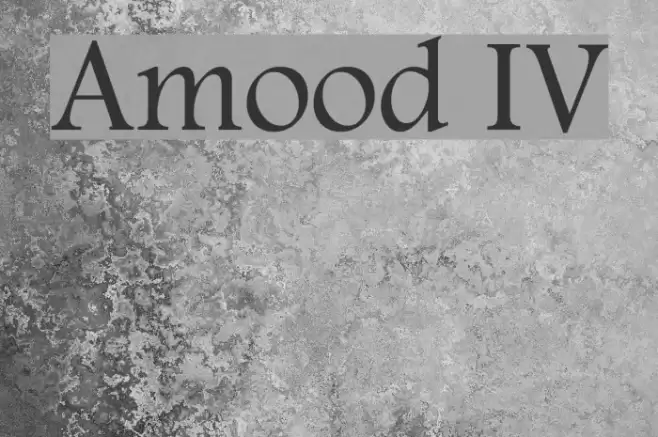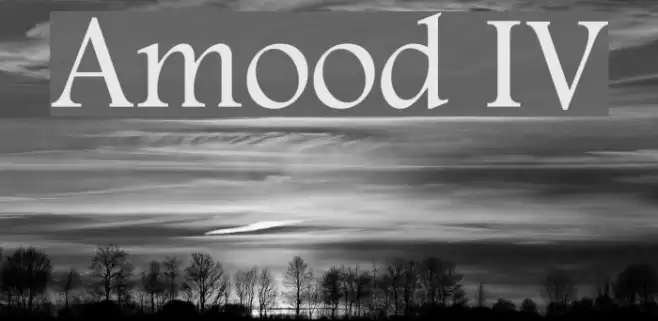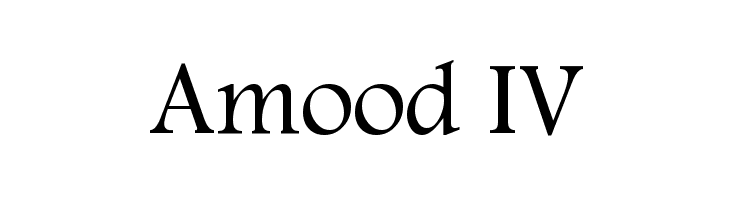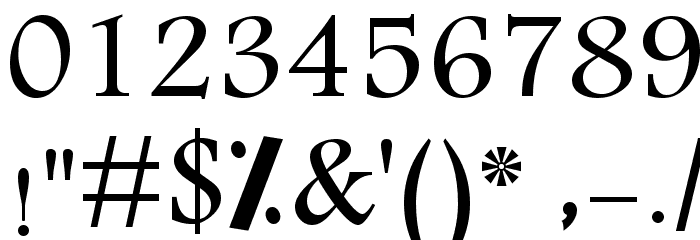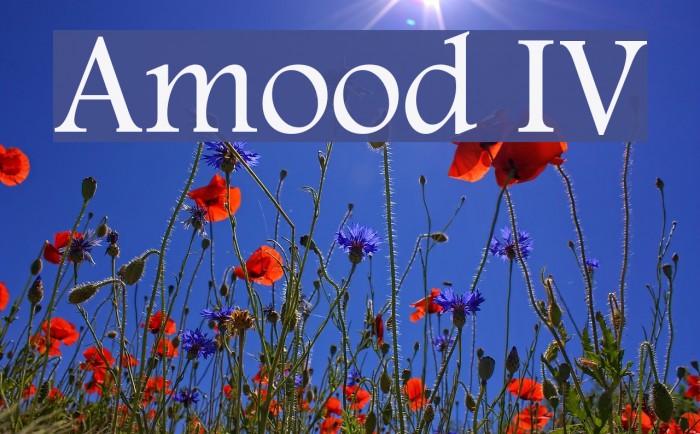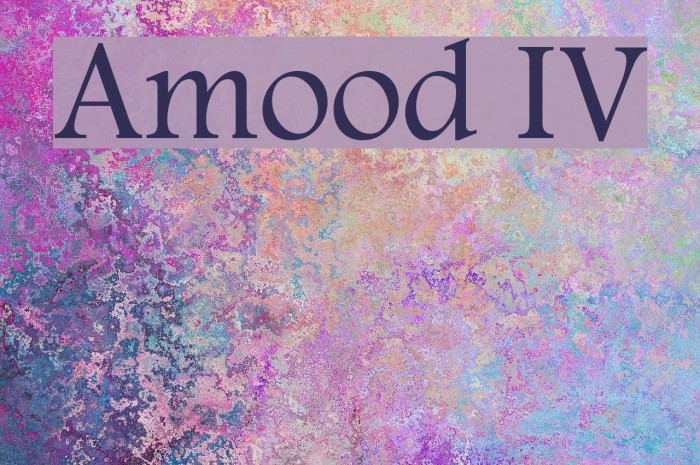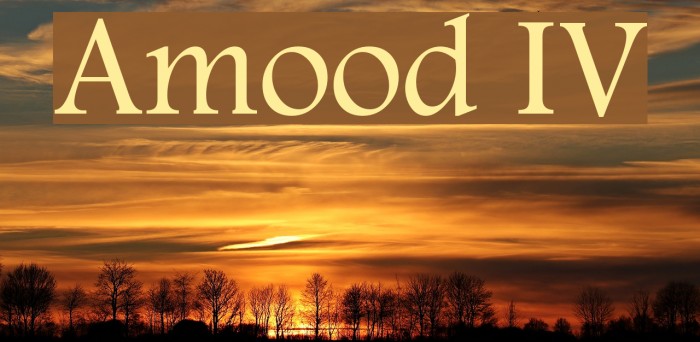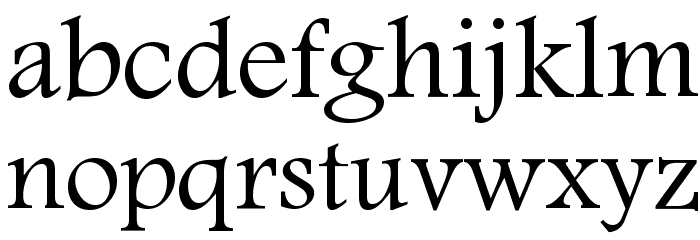
Amood IV Font
Amood IV Description
This font features a classic serif style with elegant and refined strokes. The characters exhibit a balanced contrast between thick and thin lines, enhancing readability while maintaining a sophisticated appearance. The serifs are pronounced yet not overly decorative, providing a timeless look suitable for both traditional and modern applications. The uppercase letters are bold and commanding, while the lowercase letters maintain a harmonious flow. Numerals are clear and well-proportioned, and the special characters integrate seamlessly with the overall design. This font is versatile, offering a professional aesthetic that can be used across various media.
A classic serif font with elegant strokes and balanced contrast, suitable for diverse applications from Uncategorized fonts.
- Proposed Projects: Ideal for editorial design, book covers, formal invitations, branding, and corporate communications.
- Overall Style: Classic